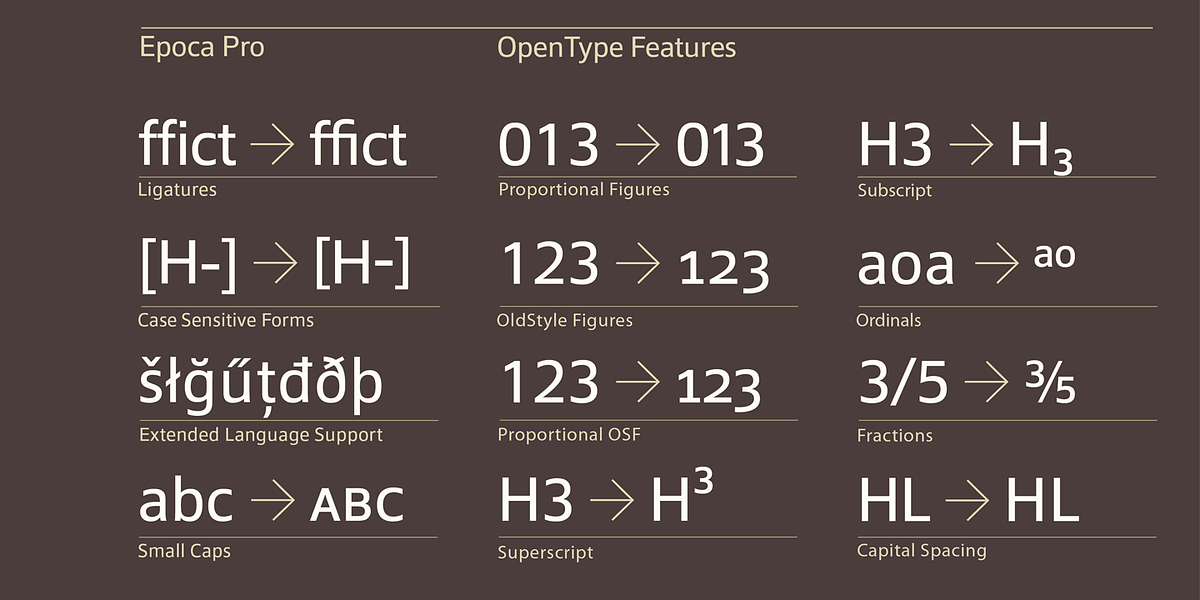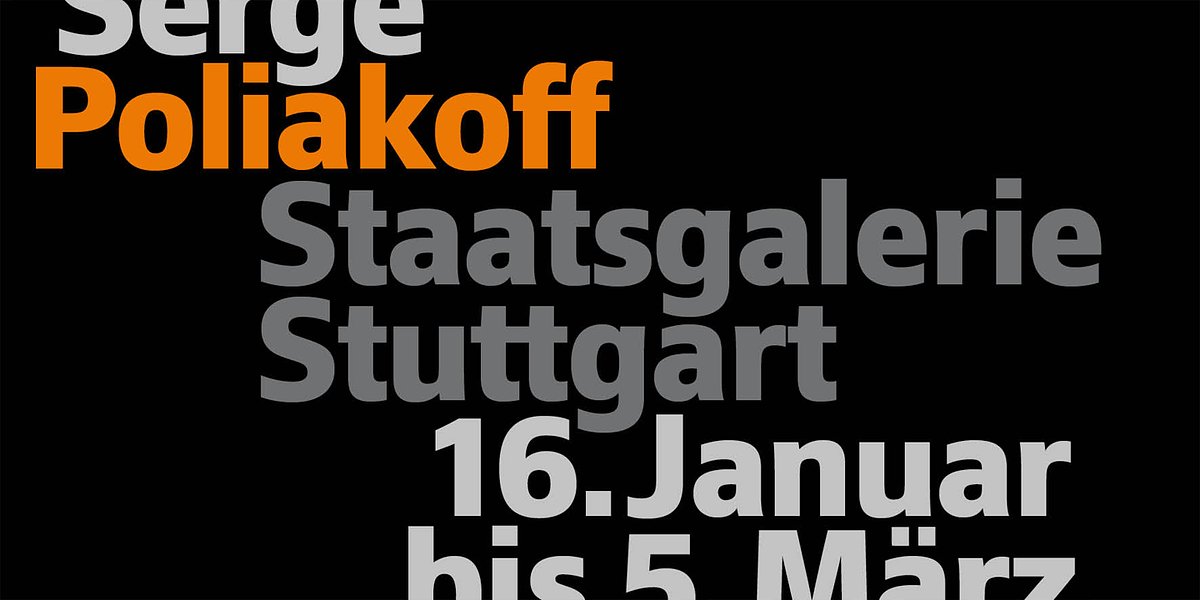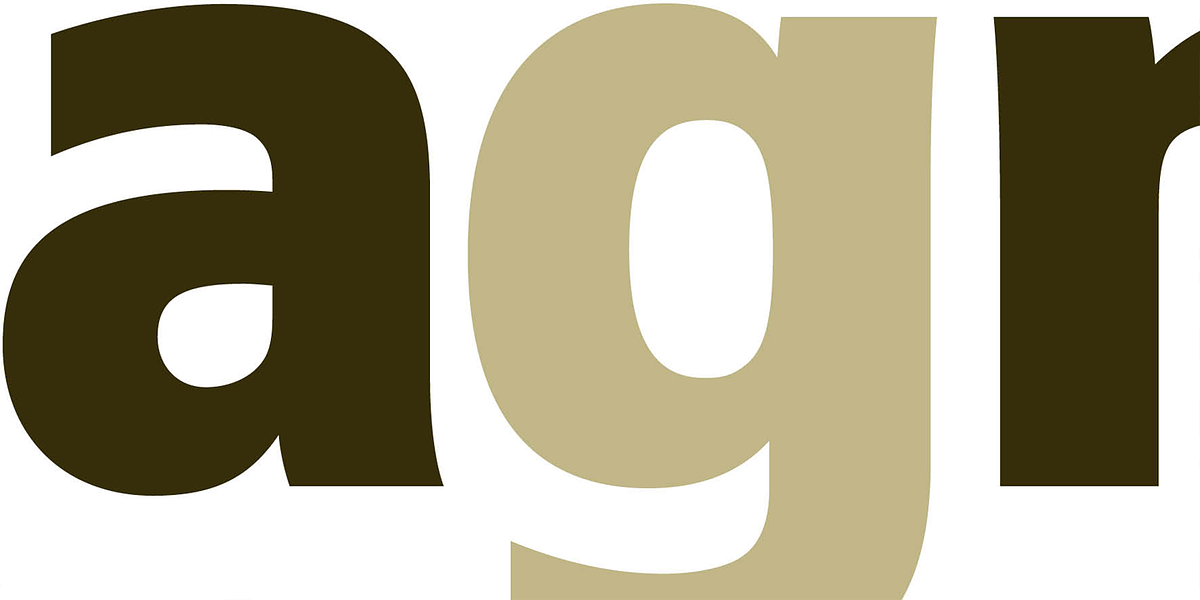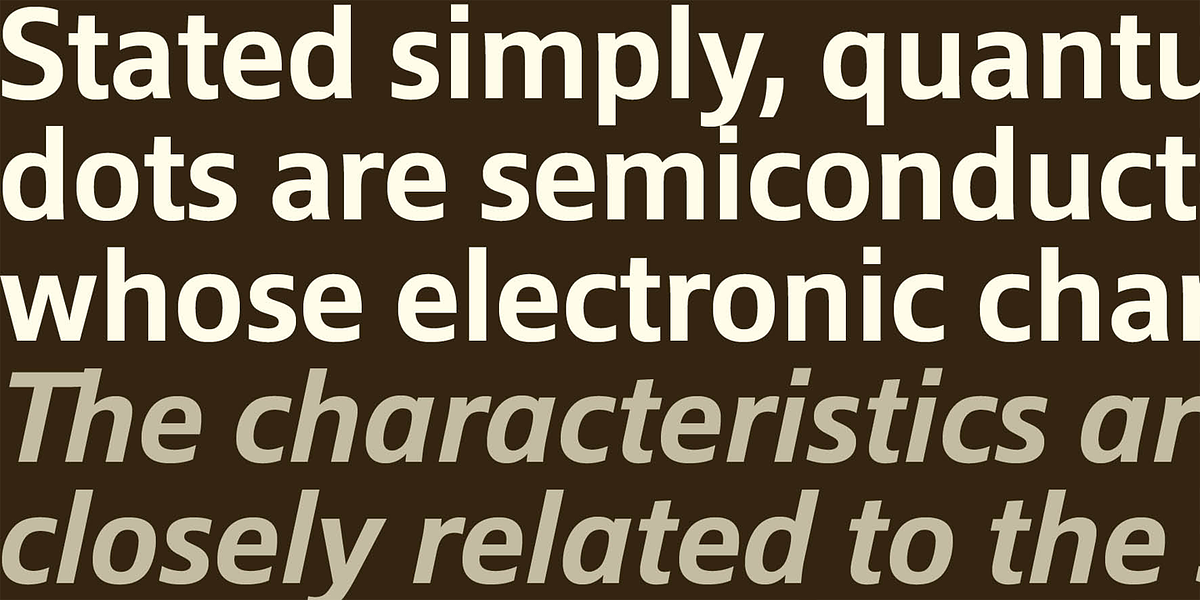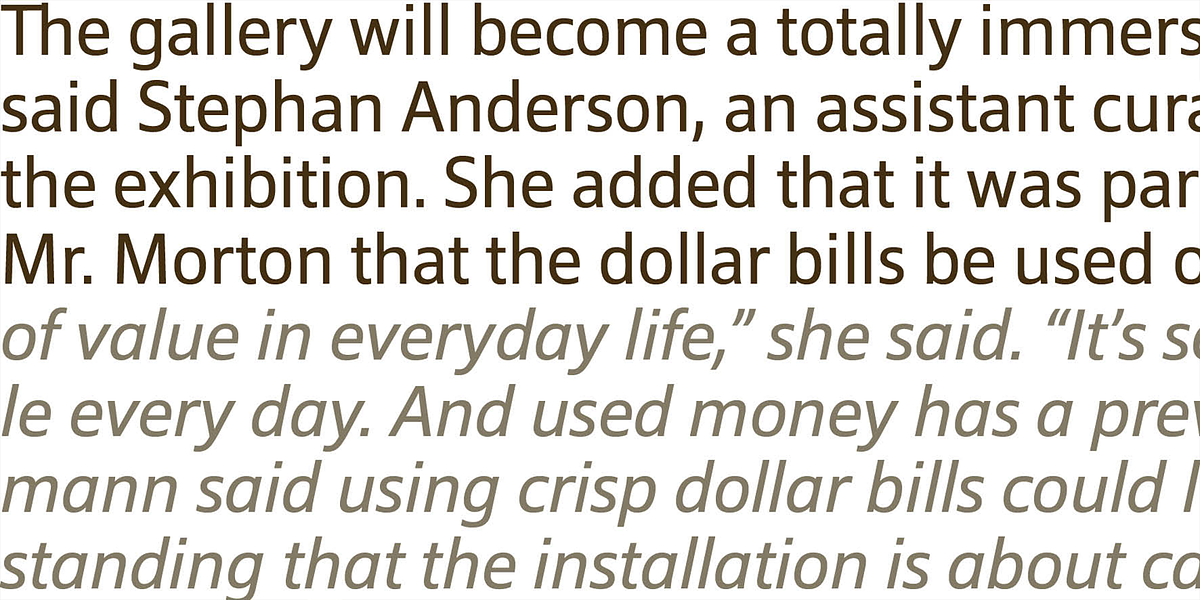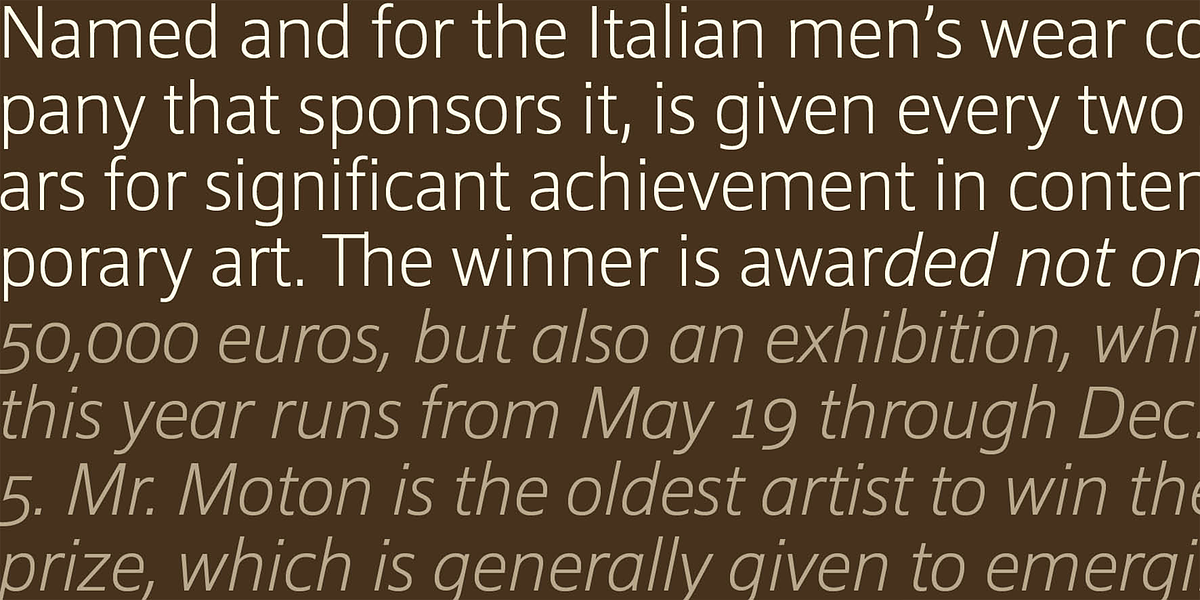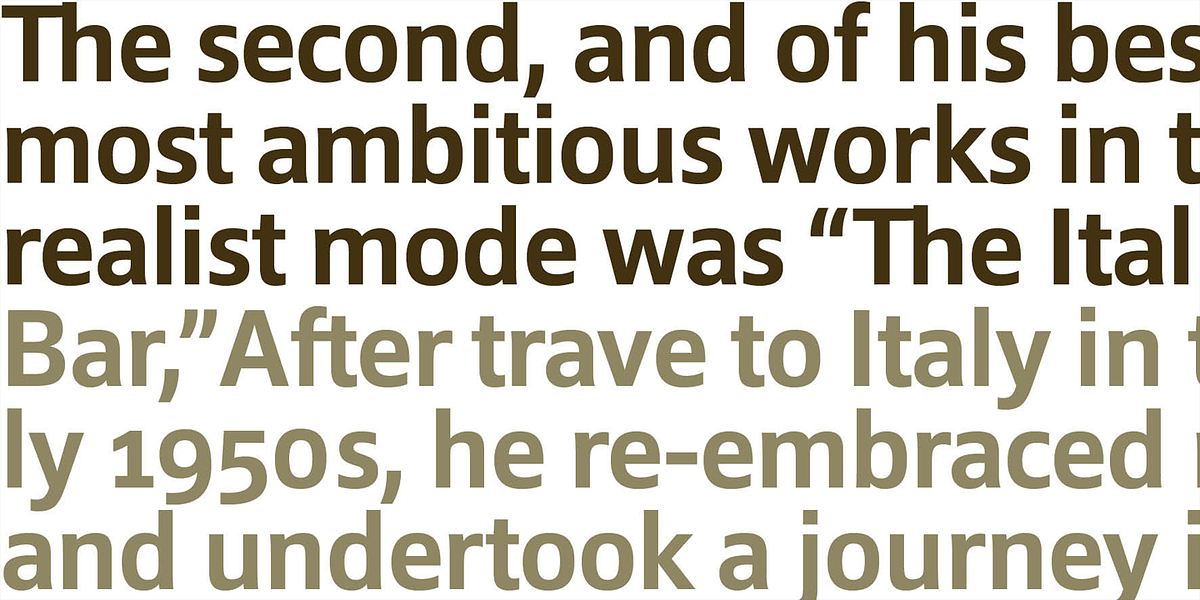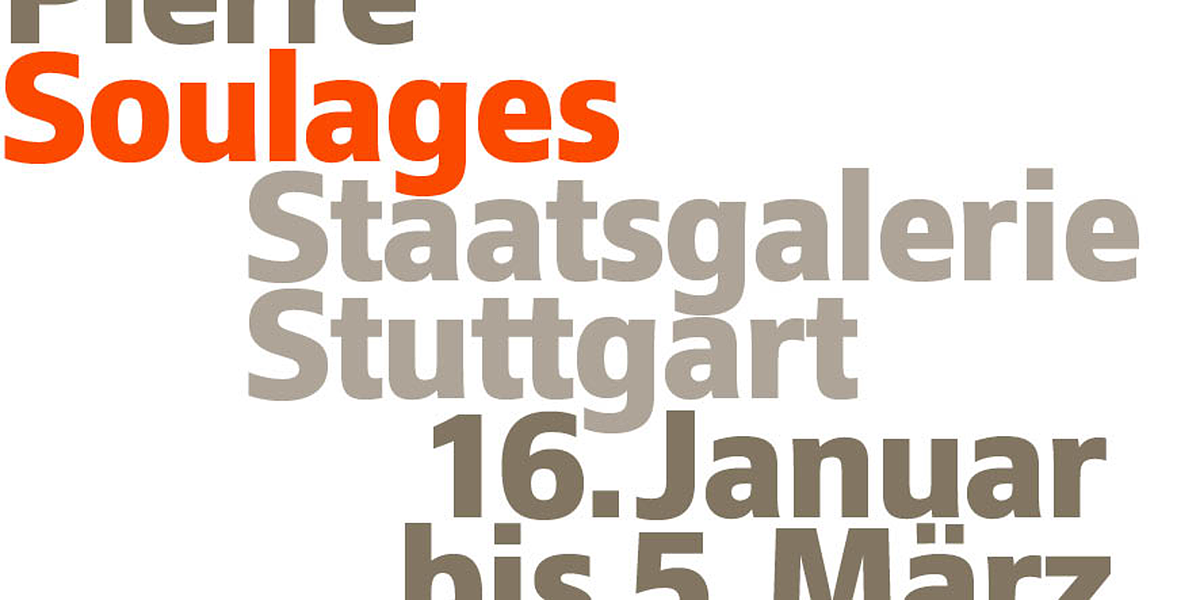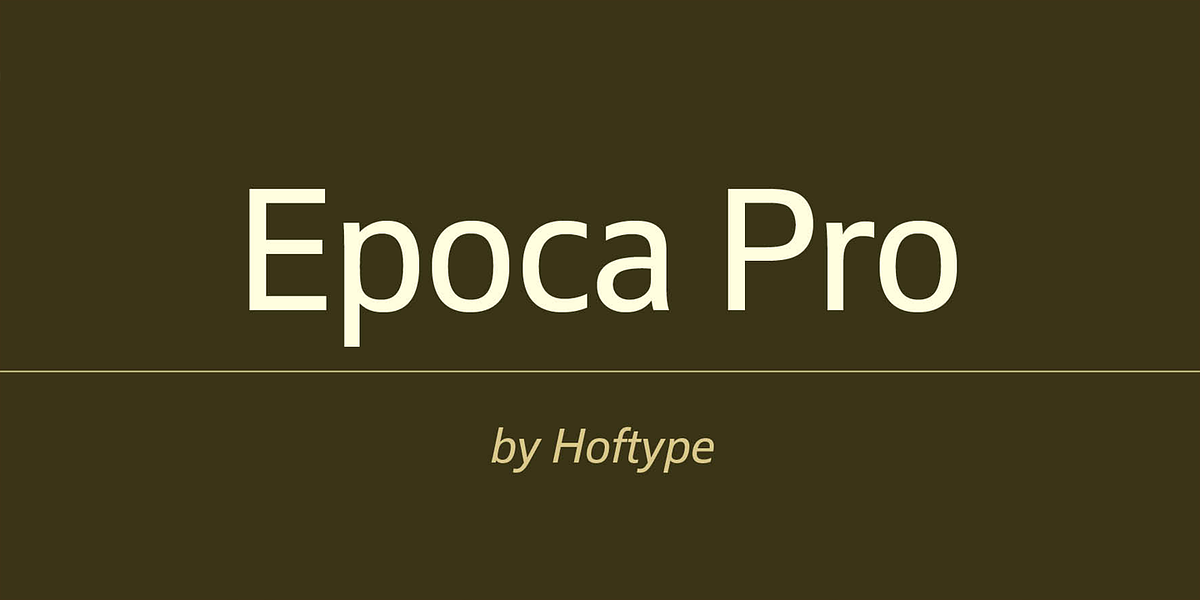
Epoca Pro
Epoca is a neo-grotesque sans serif font designed for both text and display use. It features a neutral appearance and discreet elegance while maintaining sturdiness and robustness. The slightly angular shape of the rounded elements creates a smooth reading experience even in large blocks of text.